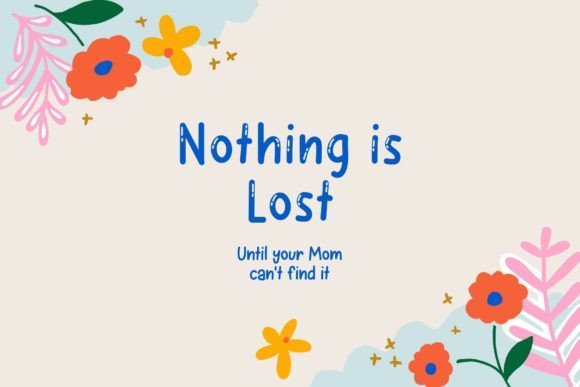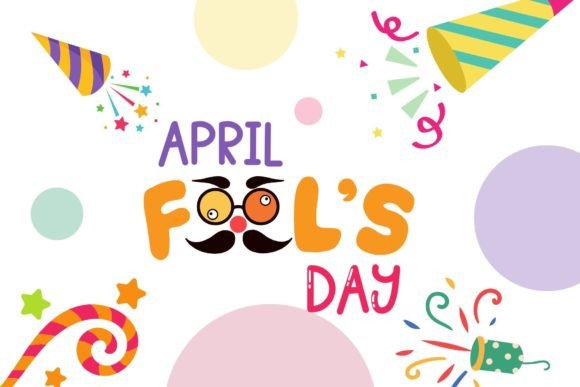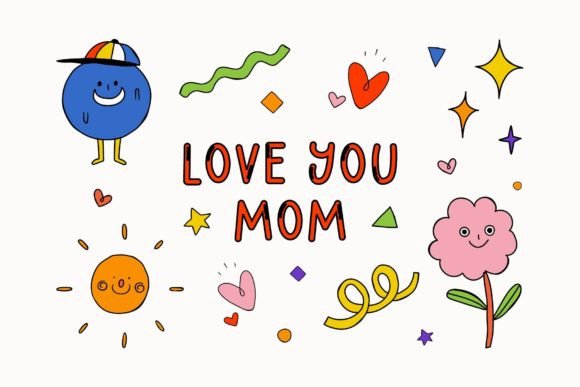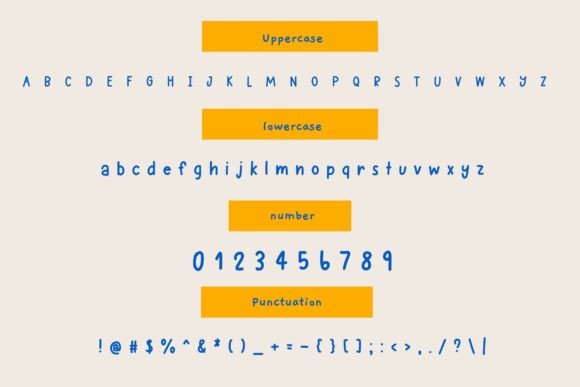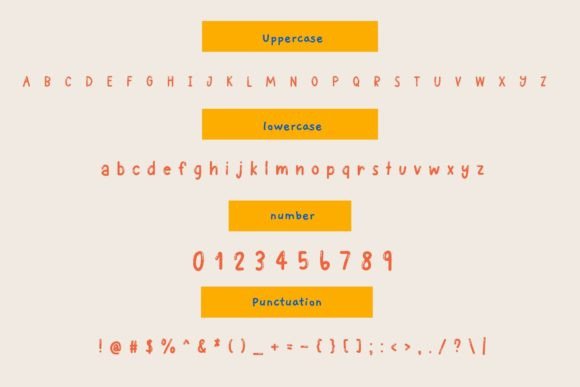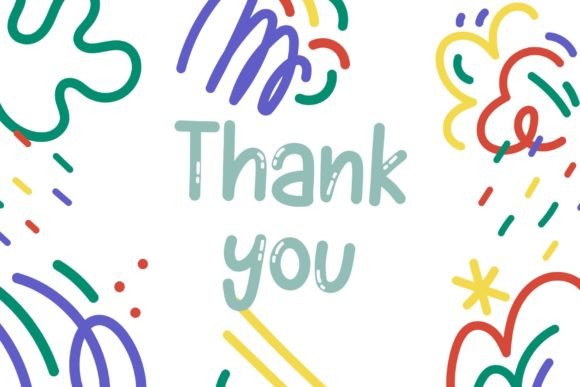
Cameron Font: The Perfect Handwritten Choice for Your Creative Projects
Are you looking for a font that embodies playfulness and authenticity? Look no further than the Cameron font! This cute handwritten font is perfect for adding a personal touch to your designs, and its versatility makes it suitable for a wide range of projects. In this article, we’ll explore the features and benefits of the Cameron font, and show you how to make the most of it in your creative endeavors.
What is Cameron Font?
Cameron font is a beautiful, hand-crafted typeface that exudes warmth and friendliness. Its playful and authentic feel makes it an excellent choice for designers and crafters who want to add a personal touch to their work. Whether you’re creating a blog post, logo, branding materials, ads, invitations, greeting cards, planners, photo albums, or decorations, Cameron font is the perfect choice.
Key Features of Cameron Font
- Playful and Authentic: Cameron font has a unique, handwritten feel that’s perfect for creating a personal connection with your audience.
- Versatile: This font is suitable for a wide range of projects, from digital designs to print materials.
- Cute and Whimsical: Cameron font adds a touch of playfulness and fun to any design, making it perfect for creative projects.
- Easily Readable: Despite its playful feel, Cameron font is easy to read, making it perfect for body text and headlines.
Benefits of Using Cameron Font
So, why choose Cameron font for your projects? Here are just a few benefits of using this amazing font:
- Adds a Personal Touch: Cameron font helps you create a personal connection with your audience, making your designs feel more approachable and friendly.
- Enhances Creativity: The playful and whimsical feel of Cameron font inspires creativity and imagination, making it perfect for artistic projects.
- Perfect for Branding: Cameron font is an excellent choice for branding materials, as it helps create a unique and memorable identity for your business or product.
How to Use Cameron Font in Your Designs
Using Cameron font in your designs is easy! Here are a few tips to get you started:
- Pair it with Other Fonts: Cameron font pairs well with other fonts, such as sans-serif fonts like Arial or Helvetica. Experiment with different combinations to find the perfect look for your project.
- Use it for Headlines and Body Text: Cameron font is suitable for both headlines and body text, making it a great choice for blog posts, articles, and other written content.
- Add it to Your Branding Materials: Use Cameron font to create a consistent brand identity across all your marketing materials, including business cards, brochures, and social media graphics.
- Experiment with Colors and Textures: Cameron font looks great in a variety of colors and textures. Experiment with different effects to add depth and interest to your designs.
In conclusion, Cameron font is a versatile and playful handwritten font that’s perfect for adding a personal touch to your designs. Its unique feel and ease of use make it an excellent choice for designers and crafters of all levels. Whether you’re creating blog posts, logos, branding materials, ads, invitations, greeting cards, planners, photo albums, or decorations, Cameron font is the perfect choice. So why wait? Add Cameron font to your designs today and enjoy the results!
- Is Cameron font easy to read? Yes, Cameron font is designed to be easily readable, making it perfect for body text and headlines.